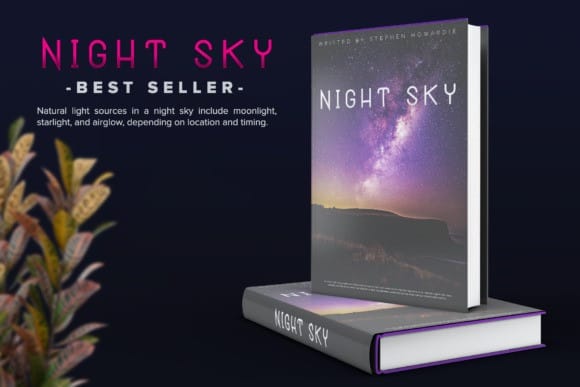
Black Hole Sans Serif Font is a display sans serif typeface inspired by the luxurious side of vintage artdeco style. With its neat and beautiful arrangement of letters, this typeface will look outstanding in both formal and non-formal designs. It has a tall and condensed characteristic with artful treatment on each letter, making it unique. It theme is artful, fashion, vintage but has a modern fling and is perfect for wordmark logo, headlines, titles, poster, and many other projects.